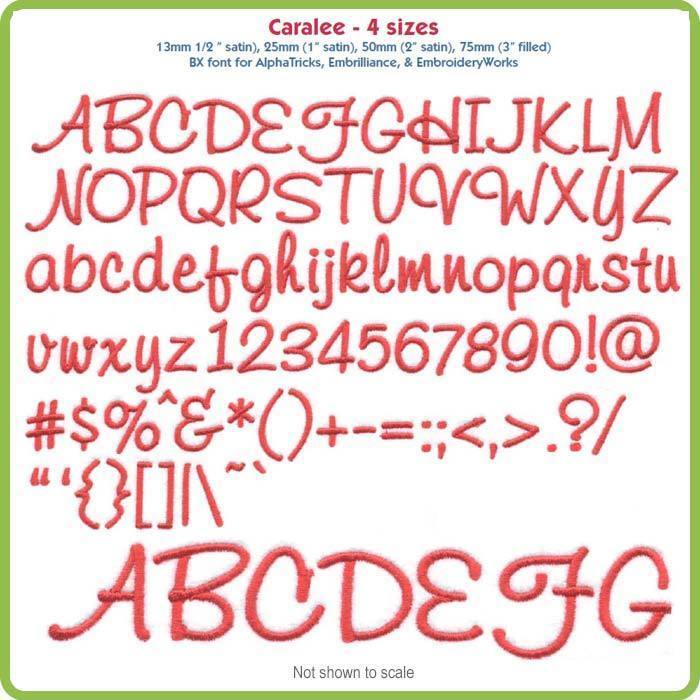
Caralee Fonts – 4 sizes (included designs are not available individually)
Collection Notes: Casual script alphabet includes A-Z, a-z, 0-9, and the following punctuation: ~!@#$%&()-[]:;"',.?/ in 4 sizes: 13 mm satin, 25 mm satin, 50 mm satin and 75 mm fill stitch.